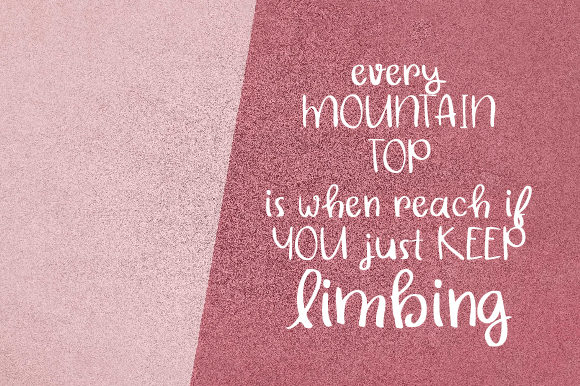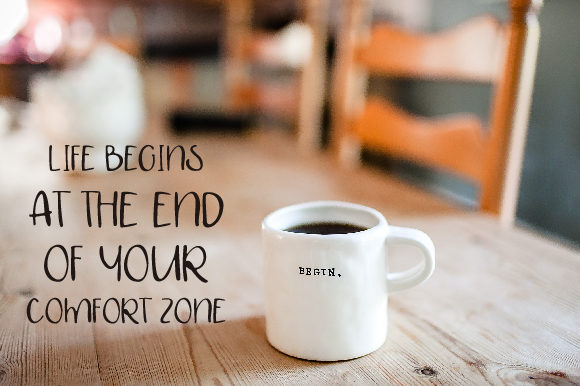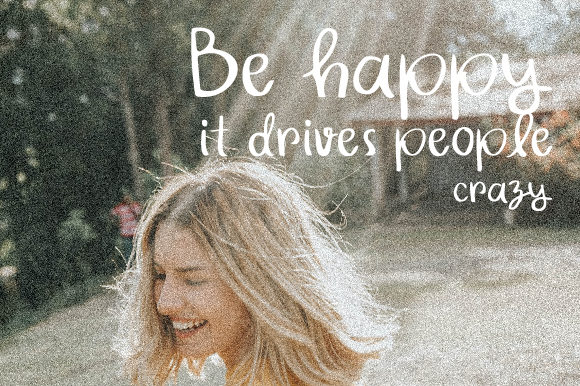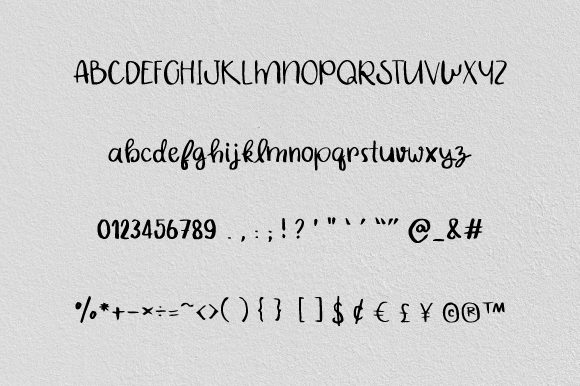
Dream Destination Font: The Perfect Choice for Designers and Crafters
Are you looking for a font that exudes a sense of whimsy and romance? Look no further than the Dream Destination Font. This beautiful script font is designed to evoke a dreamy and soft vibe, making it perfect for designers and crafters who want to add a touch of elegance to their projects.
What is Dream Destination Font?
Dream Destination is a gentle and charming script font that is sure to capture the hearts of designers and crafters alike. With its flowing lines and delicate curves, this font is perfect for creating beautiful and eye-catching designs. Whether you’re working on a branding project, a wedding invitation, or a craft tutorial, Dream Destination Font is the perfect choice.
Key Features of Dream Destination Font
- Gentle and Charming: Dream Destination Font has a soft and romantic vibe that is sure to add a touch of elegance to any design.
- Dreamy and Soft: The font’s flowing lines and delicate curves create a dreamy and soft effect that is perfect for designs that require a touch of whimsy.
- Script Font: Dream Destination Font is a script font that is designed to mimic the look of handwritten text.
- Easy to Read: Despite its delicate curves and flowing lines, Dream Destination Font is easy to read and understand.
Uses of Dream Destination Font
Dream Destination Font is a versatile font that can be used in a variety of design projects, including:
- Branding: Use Dream Destination Font to create beautiful and eye-catching logos, business cards, and letterheads.
- Wedding Invitations: Add a touch of romance and elegance to your wedding invitations with Dream Destination Font.
- Craft Tutorials: Use Dream Destination Font to create beautiful and easy-to-follow craft tutorials.
- Social Media Graphics: Add a touch of whimsy and romance to your social media graphics with Dream Destination Font.
Why Choose Dream Destination Font?
There are many reasons why designers and crafters choose Dream Destination Font for their projects. Here are just a few:
- Unique and Eye-Catching: Dream Destination Font is a unique and eye-catching font that is sure to set your designs apart from the rest.
- Versatile: Dream Destination Font can be used in a variety of design projects, from branding to wedding invitations.
- High-Quality: Dream Destination Font is a high-quality font that is designed to produce beautiful and professional-looking results.
Tips for Using Dream Destination Font
Here are a few tips for using Dream Destination Font in your designs:
- Use it Sparingly: Dream Destination Font is a delicate font that works best when used sparingly. Try using it for headings or titles, and a simpler font for body text.
- Experiment with Colors: Dream Destination Font looks beautiful in a variety of colors, from soft pastels to rich jewel tones. Experiment with different colors to find the one that works best for your design.
- Pair it with Other Fonts: Dream Destination Font can be paired with other fonts to create a unique and eye-catching effect. Try pairing it with a bold sans-serif font for a striking contrast.
Dream Destination Font is a beautiful and charming script font that is perfect for designers and crafters who want to add a touch of elegance to their projects. With its flowing lines and delicate curves, this font is sure to capture the hearts of anyone who sees it. Whether you’re working on a branding project, a wedding invitation, or a craft tutorial, Dream Destination Font is the perfect choice.